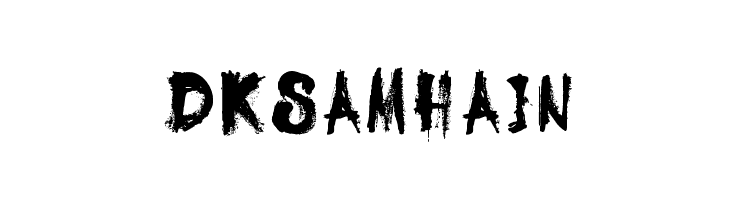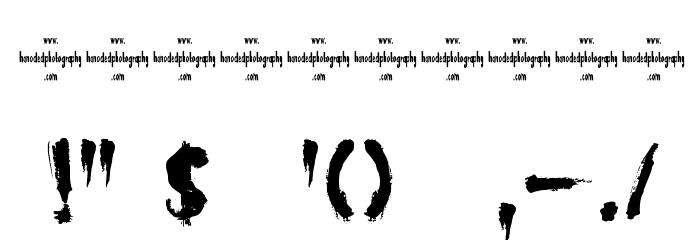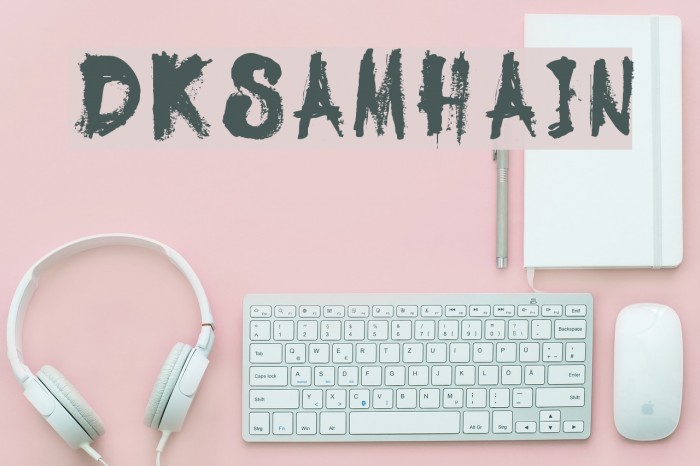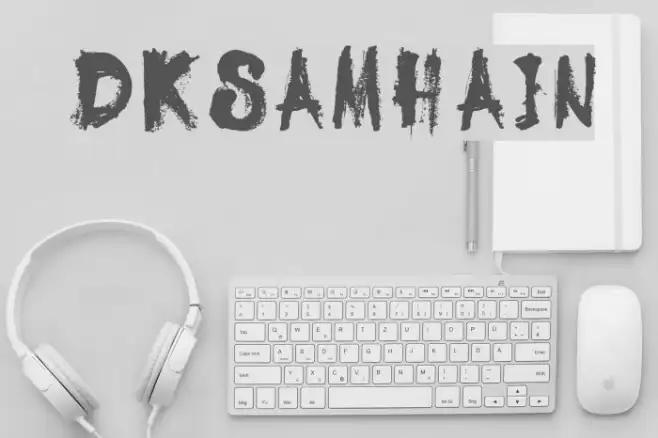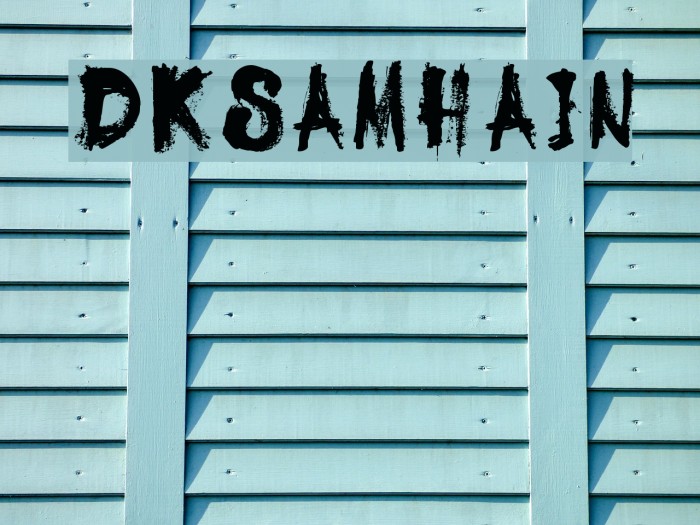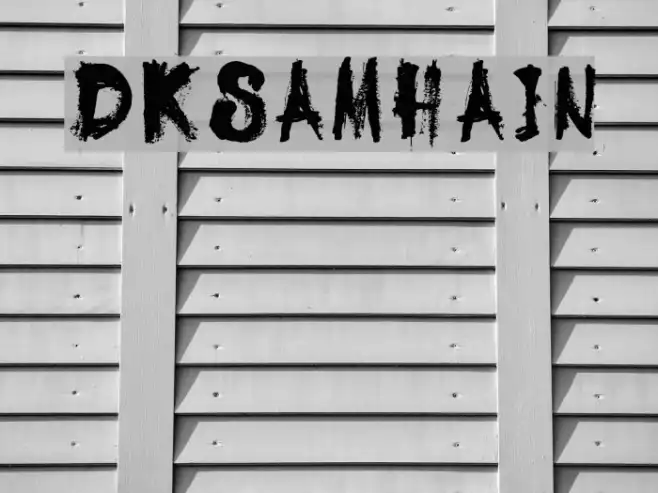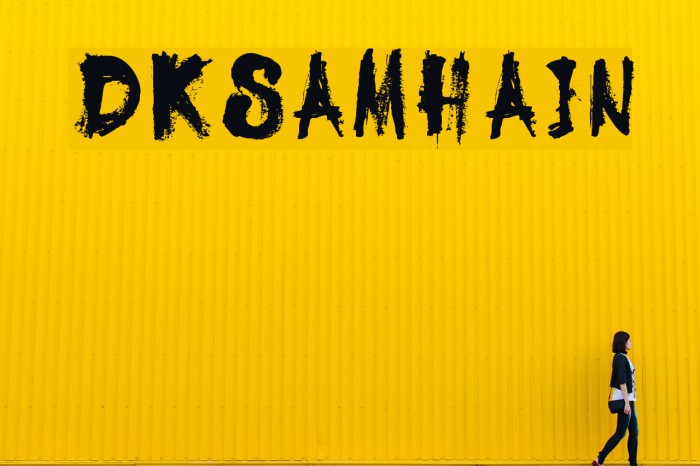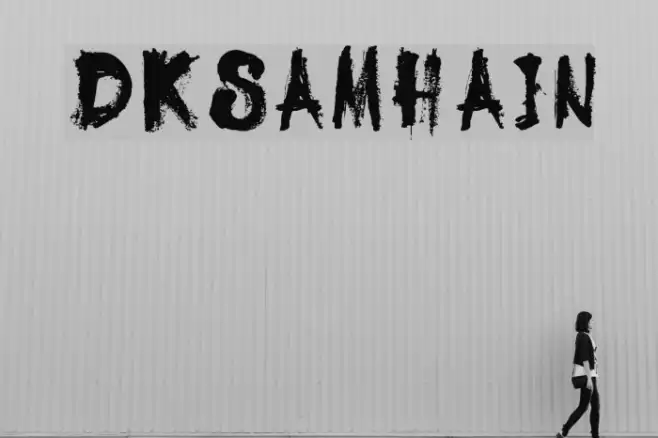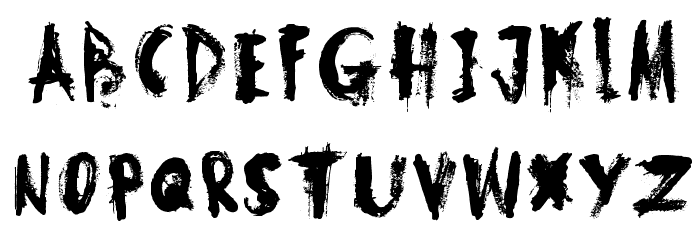
DKSamhain Font
This font features a bold, distressed style with a hand-painted appearance, evoking a sense of raw energy and artistic flair. The characters are uneven and textured, with rough edges that suggest a brushstroke technique. This gives the font a dynamic and expressive quality, making it ideal for projects that require a bold statement. The uppercase and lowercase letters maintain a consistent style, with a slightly irregular baseline that enhances its handcrafted look. The numbers and special characters are equally expressive, maintaining the same rugged aesthetic.
A bold, distressed font with a hand-painted, artistic style.
• Proposed Projects: Ideal for Halloween-themed designs, posters, album covers, and any project requiring a bold, artistic touch.
• Category: Decorative/Display
• Bold: Yes
• Italic: No
• Weight: Bold
• Width: Normal
• Character Spacing: Normal
• Contrast: High
• Overall Style: Decorative
• Use Case: Headlines, Logos, Posters